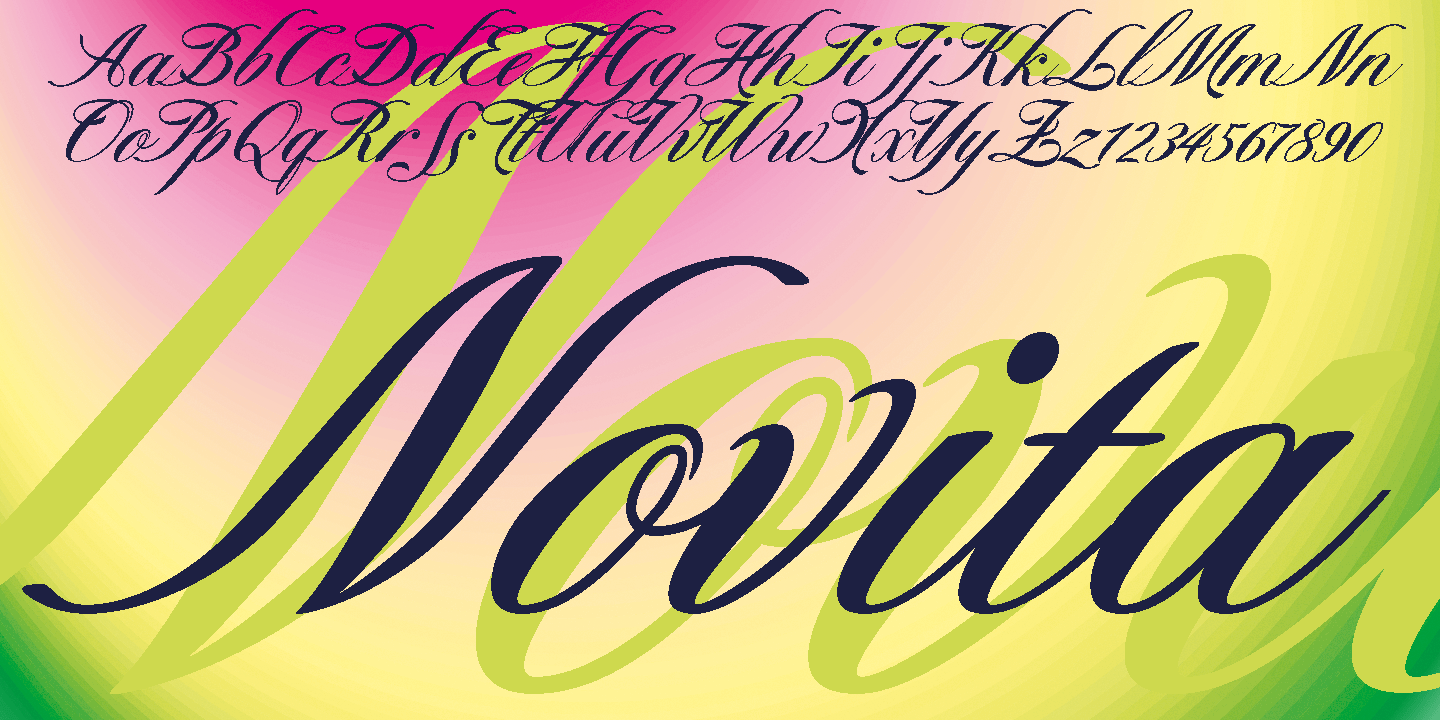
Novita
Font Family by Autographis
Novita is a new something. This font is a new very elegant ? extremely slanted ? joining script with long ascenders and descenders.
It is the fianc